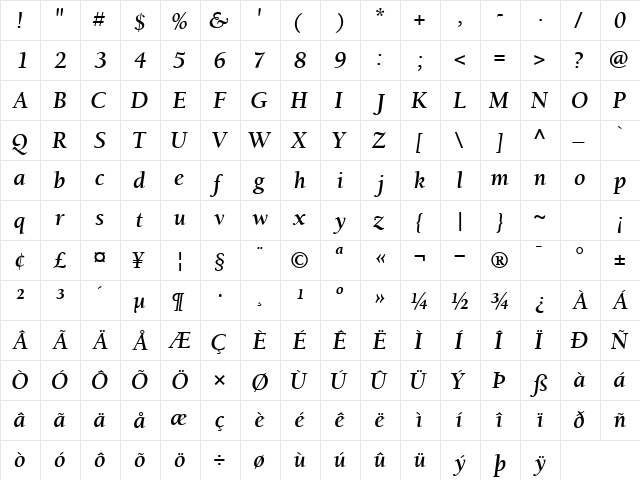
BerkeleyRetrospectiveSSK BoldItalic Font Preview
Design Context for BerkeleyRetrospectiveSSK Typeface
BerkeleyRetrospectiveSSK has the warm character of retro typography — evoking diners, record sleeves, and the golden age of print advertising. Its italic angle brings a sense of urgency and motion to the letterforms. The heavy weight commands attention and anchors typographic hierarchies.
Font Pairing: Combine BerkeleyRetrospectiveSSK with a simple slab or neutral sans — period-accurate companions reinforce the vintage feel without competing for attention.
Pro Tip: Use BerkeleyRetrospectiveSSK for headlines and pull quotes rather than body copy — its personality is best appreciated in short, focused bursts.